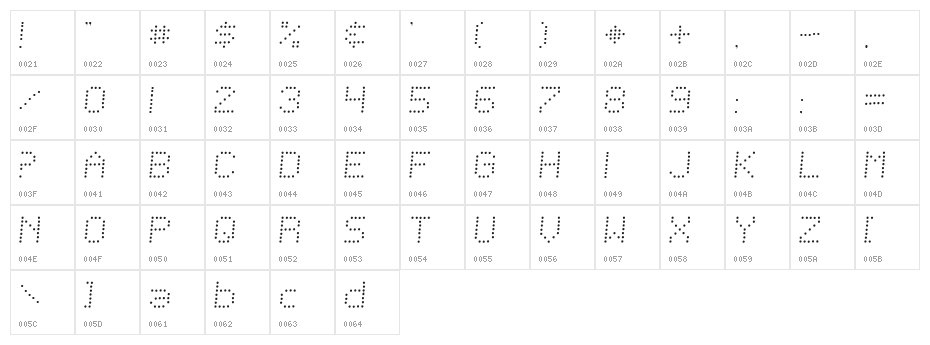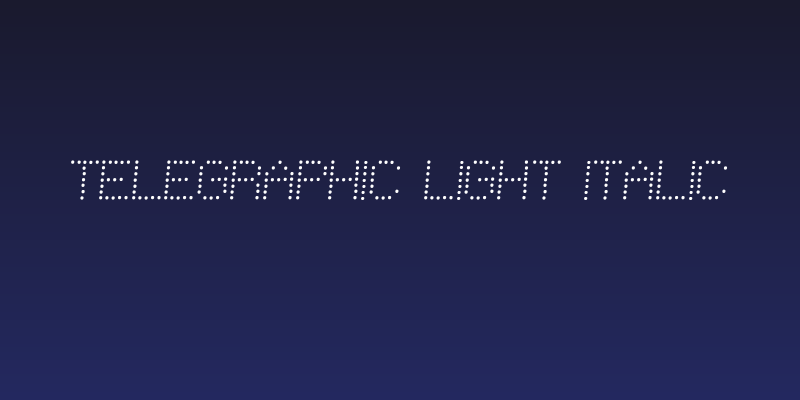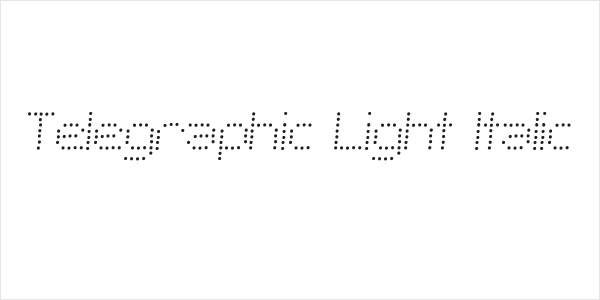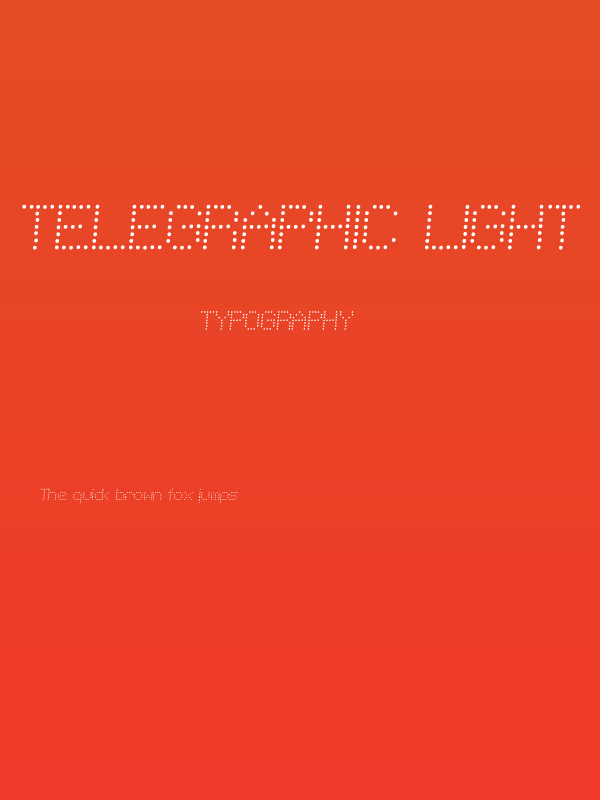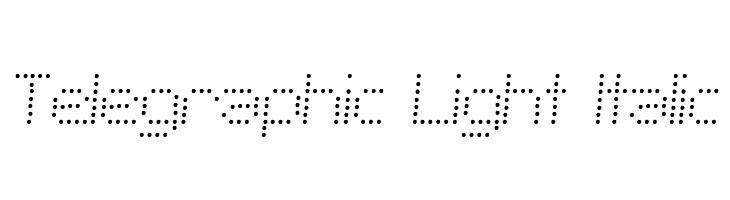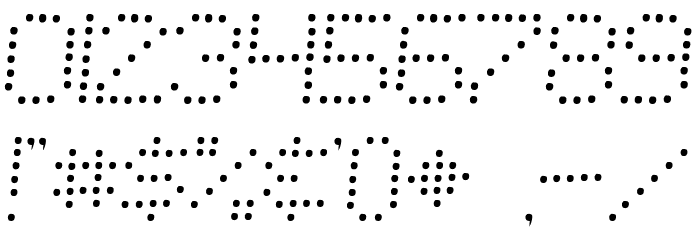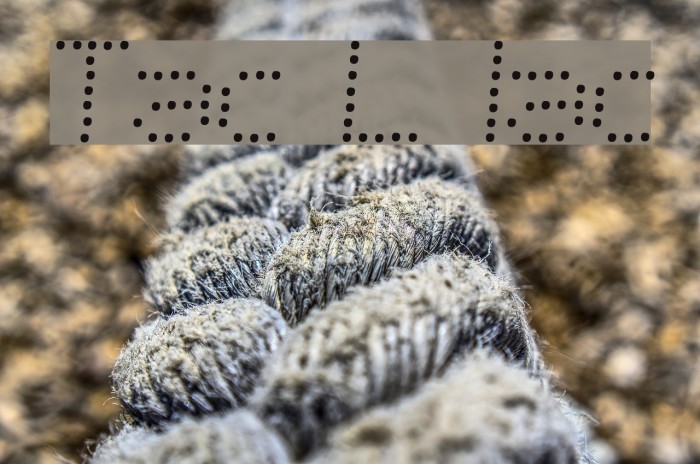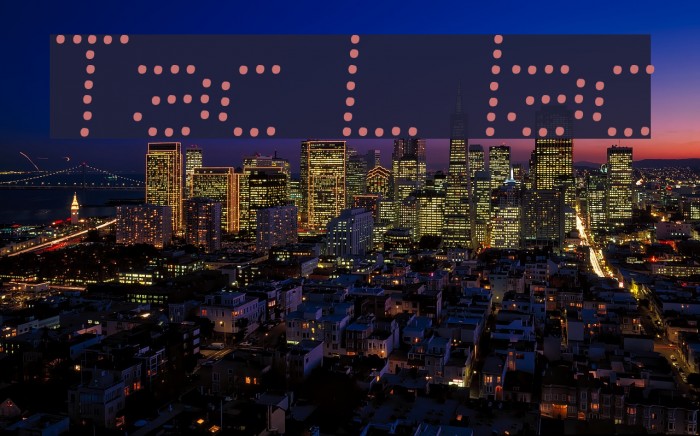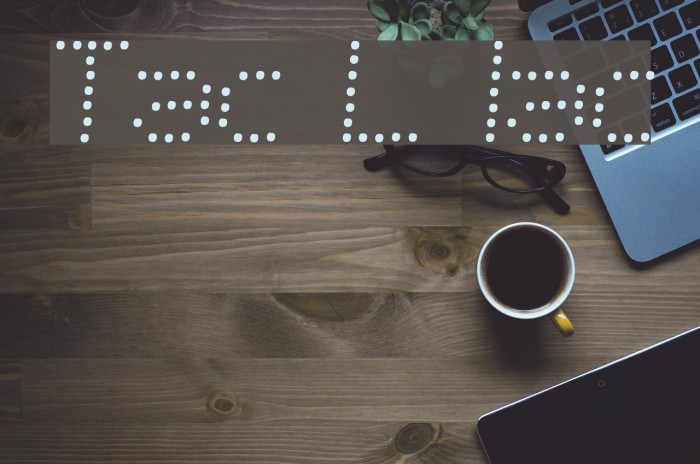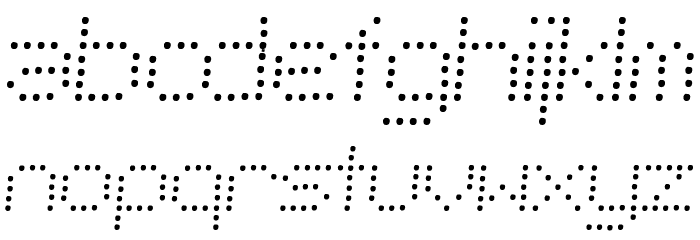
Telegraphic Light Italic Font
Telegraphic Light Italic Description
This font features a unique dotted design, where each character is composed of a series of evenly spaced dots, creating a digital and modern aesthetic. The letters are slightly slanted, giving an italicized appearance that adds a sense of motion and fluidity. The spacing between the dots is consistent, providing a clean and organized look. This font is particularly distinctive due to its minimalistic and geometric style, making it stand out in any design. The characters maintain a uniform weight throughout, contributing to a cohesive and harmonious visual experience. The font's playful yet structured appearance makes it suitable for creative and contemporary projects.
| Use Case | Logos, Headlines, Digital displays |
| Proposed Projects | Ideal for digital displays, tech-themed designs, modern art projects, and creative branding. |